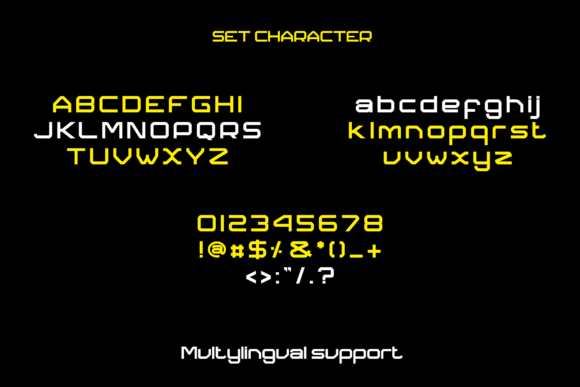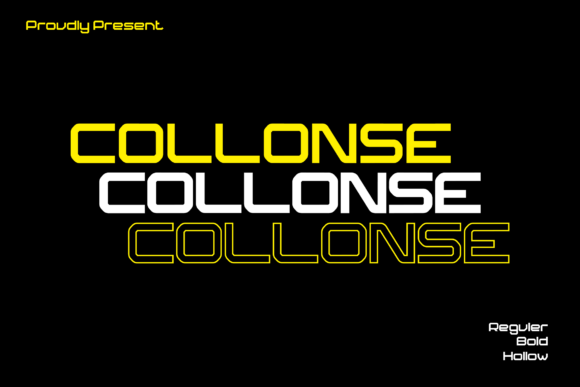
Introducing Collonse Font: Elevate Your Design with a Unique Sans Serif
In the world of design, typography plays a crucial role in conveying a message, expressing a brand’s identity, and capturing the audience’s attention. Among the numerous fonts available, Collonse stands out as a distinctive and assertive sans serif font that can elevate your products to new heights. Whether you’re working on fashion magazines, logos, landing pages, flyers, photography, or any other design project, Collonse is an excellent choice.
What Makes Collonse Font Special?
Collonse is more than just a font; it’s a design statement. Its unique sans serif style exudes confidence and modernity, making it perfect for designers and crafters looking to add a touch of sophistication to their work. The font’s clean lines, precise curves, and balanced proportions create a visually appealing aesthetic that can enhance any design project.
Key Features of Collonse Font
- Unique Sans Serif Style: Collonse boasts a distinctive sans serif design that sets it apart from other fonts.
- Assertive and Modern: The font’s assertive and modern look makes it ideal for designs that require a bold statement.
- High Versatility: Collonse can be used across various design projects, from fashion magazines to logos, landing pages, and more.
- Ease of Readability: The font’s clean lines and balanced proportions ensure excellent readability, even at smaller font sizes.
Perfect for Fashion and Design Projects
Fashion magazines, in particular, require fonts that are stylish, yet legible. Collonse font fits the bill perfectly, adding a touch of glamour and sophistication to any fashion-related design project. Its modern sans serif style complements fashion photography and illustrations, making it an excellent choice for designers working in the fashion industry.
Use Cases for Collonse Font
- Fashion Magazines: Elevate your fashion magazine’s typography with Collonse’s stylish and assertive sans serif font.
- Logos: Create a lasting impression with Collonse, perfect for logos that require a modern and bold look.
- Landing Pages: Enhance your website’s typography with Collonse, ensuring a professional and modern look.
- Flyers and Brochures: Add a touch of sophistication to your marketing materials with Collonse’s clean and elegant design.
- Photography: Use Collonse to add a stylish and modern touch to your photography projects, such as photo essays or portfolios.
Why Choose Collonse Font?
With so many fonts available, why choose Collonse? The answer lies in its versatility, uniqueness, and ability to elevate your design projects. Collonse is more than just a font; it’s a design solution that can help you:
- Stand Out: With Collonse, you can create designs that stand out from the crowd and capture your audience’s attention.
- Express Your Brand’s Identity: The font’s unique style allows you to express your brand’s personality and values.
- Enhance Readability: Collonse’s clean design ensures excellent readability, making it perfect for body text and headings.
In conclusion, Collonse font is a game-changer for designers and crafters looking to elevate their design projects. Its unique sans serif style, assertive and modern look, and high versatility make it an excellent choice for various design applications. Whether you’re working on fashion magazines, logos, landing pages, or photography projects, Collonse is sure to take your designs to the highest levels.